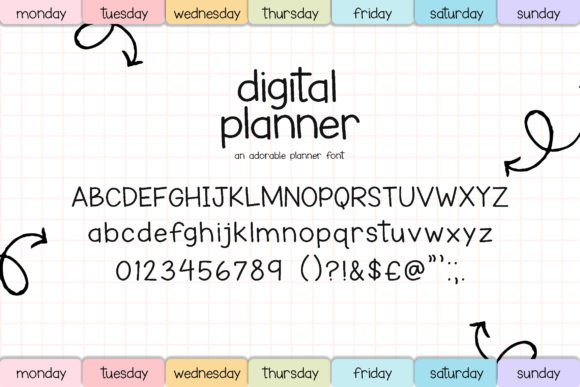
Digital Planner Font
Digital Planner is a neat and casual handwritten font. Whether you’re using it for crafts, digital design, presentations, or making greeting cards, this font has the potential to become your favorite go-to font, no matter the occasion!